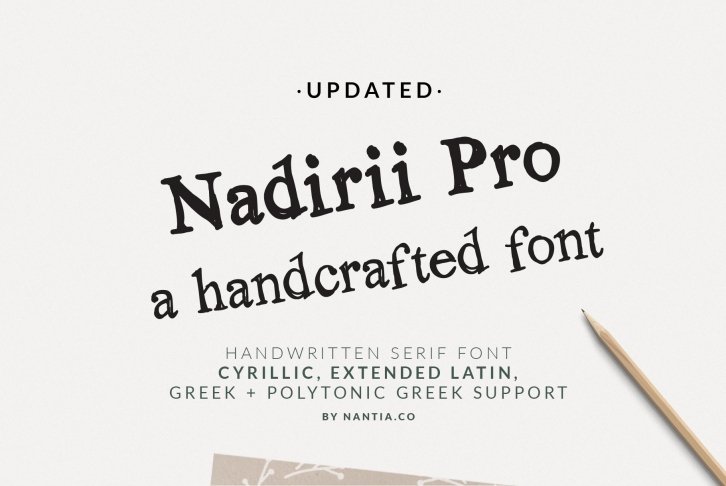
Nadirii Pro Greek, Cyrillic is a beautiful font that was designed by nantia. It's a great choice for designers and creatives who need such a font. It was released on May 9, 2017 and the file size is 6.25 MB. Nadirii Pro Greek, Cyrillic may give a more youthful, expressive and casual look to your project. It is a very beautiful, refined, elegant, and high-quality font.